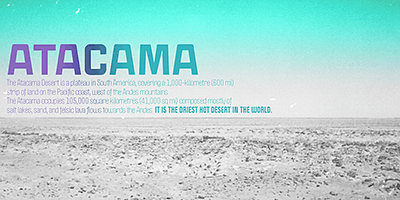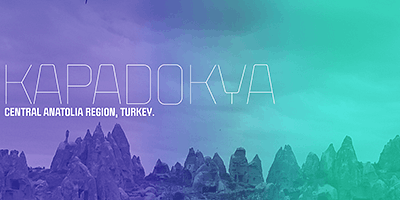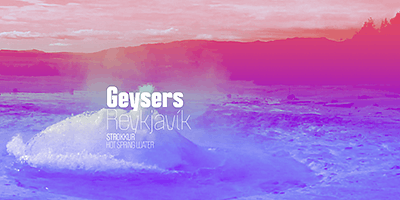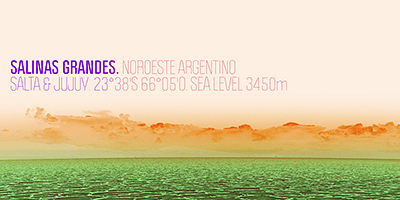
Describe the 21st century politician. Left or right? Pacifist or aggressor? Capable or incompetent? Hard or soft? Male or female? Pro or con? Young or old? East or West? Now look at the Politica super-family and see which font they may be. The overused sans serif faces don’t cut it anymore. This day and age requires a sturdy, modern and straight-to-the-point sans to cover the issues. The Politica family also come in OpenType variations which extend the character set to include Cyrillic, Greek, Baltic, Turkish and Central European languages. You have no excuse: the globe is yours with Politica.